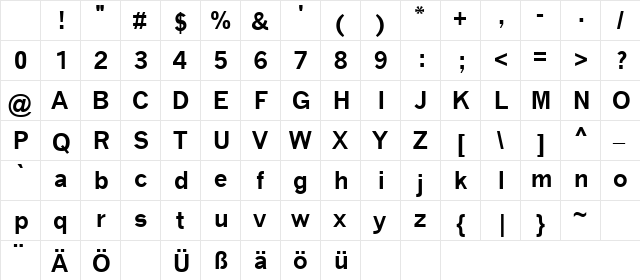
Complete QuickType II Bold glyph index. Displaying only characters natively supported by QuickType II Bold font.
QuickType II is a composed and adaptable typeface that performs quietly and consistently across a wide range of design contexts. Its bold stroke weight gives it real presence on the page.